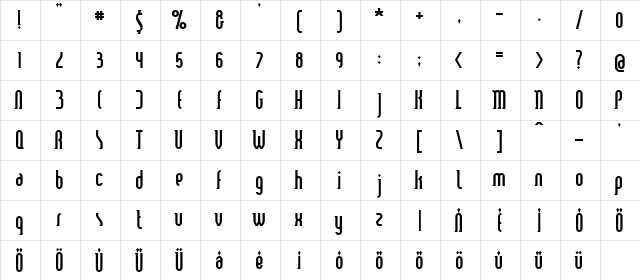
Smart and Sexy Bold
Design Context for Smart and Sexy Typeface
Smart and Sexy is a composed and adaptable typeface that performs quietly and consistently across a wide range of design contexts. Its bold stroke weight gives it real presence on the page.
Pro Tip: Pair Smart and Sexy with a font of contrasting weight or personality to build a more expressive typographic hierarchy.